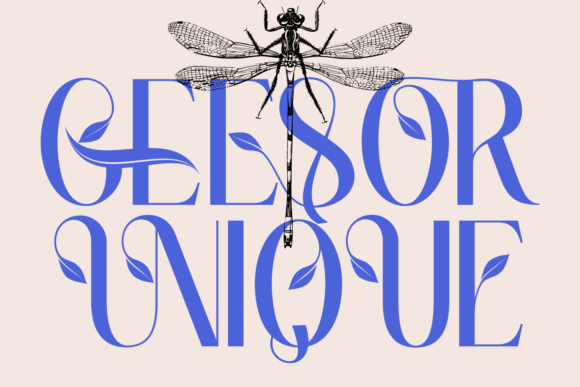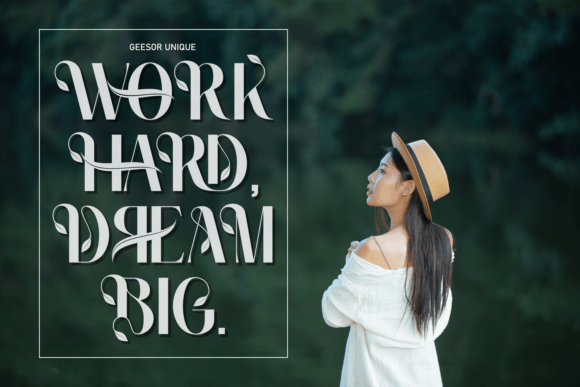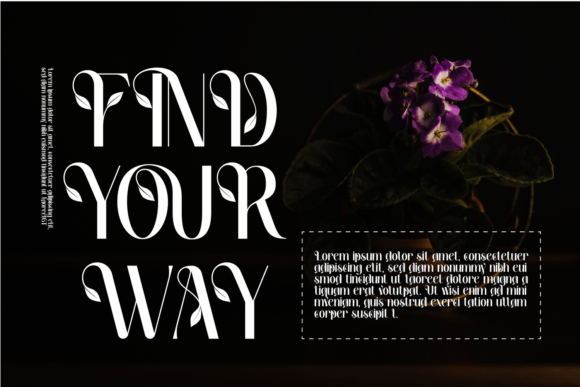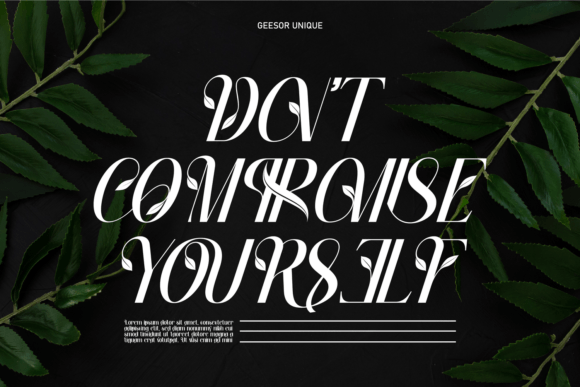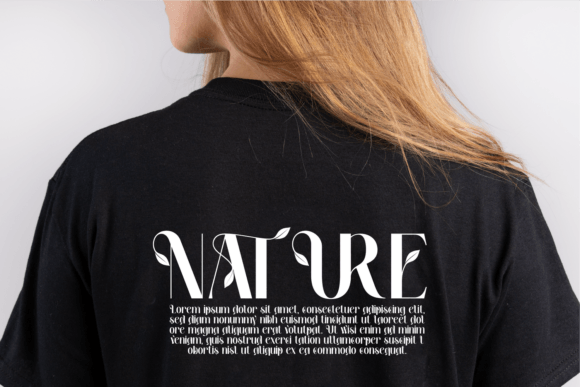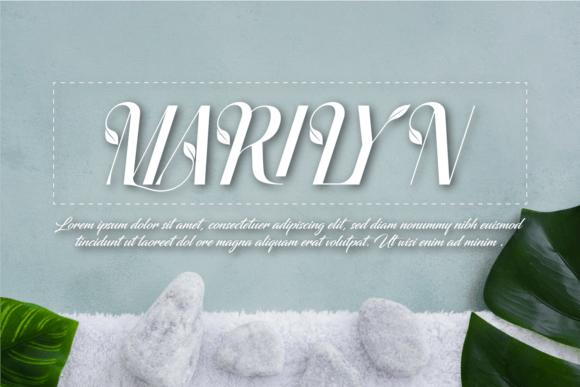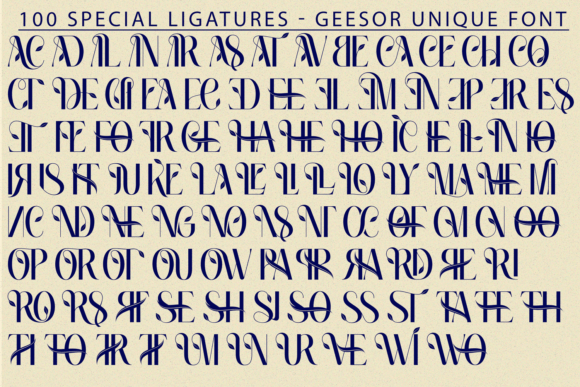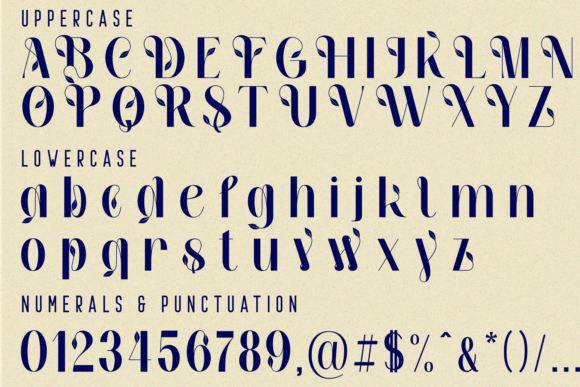
Geesor Unique is a delicate floral font with flowers and leaves, that features a nature concept with leaf swashes. It’s an elegant and feminine font suitable for all kinds of headlines and decorative purpouses. It features a unique style and will add a friendly feel to your upcoming projects. Get inspired by its authentic feel and use it to create beautiful poster, product packaging or logo and many more!